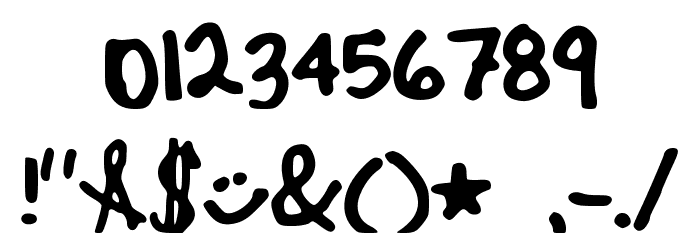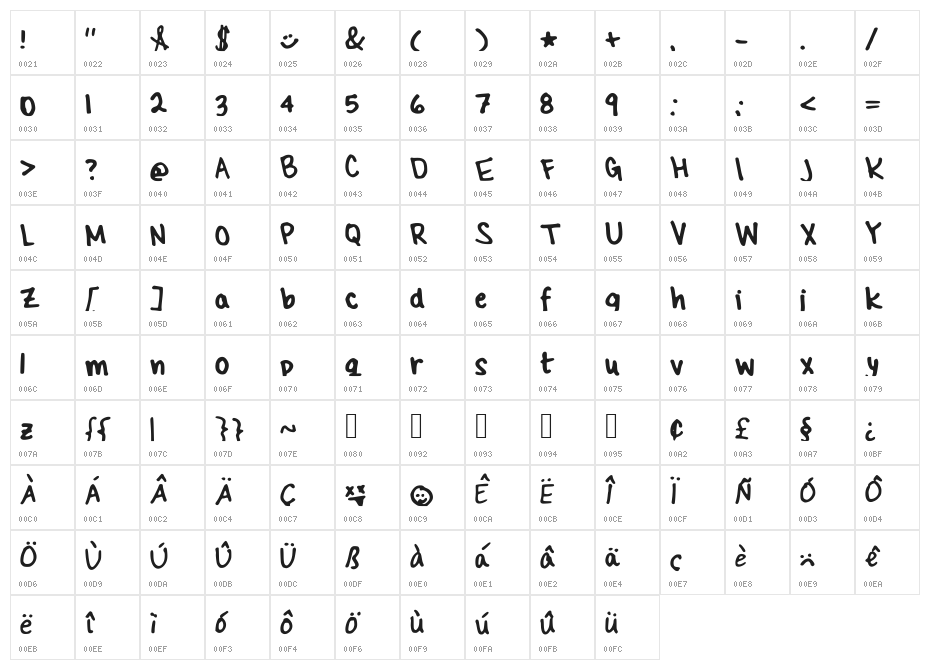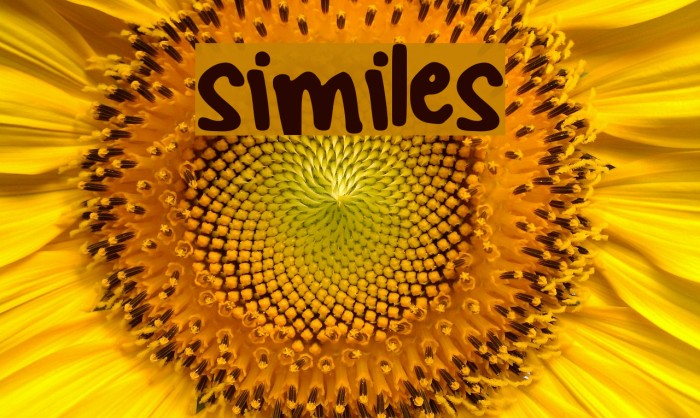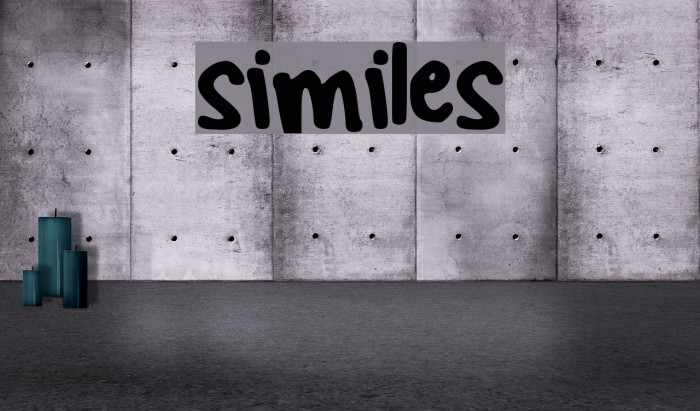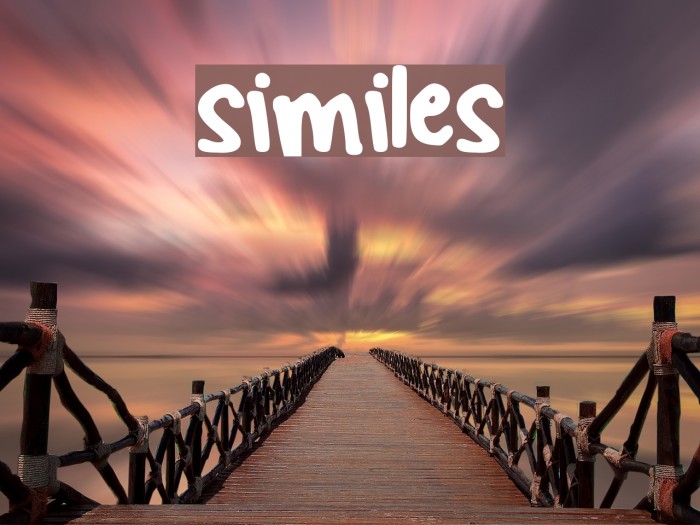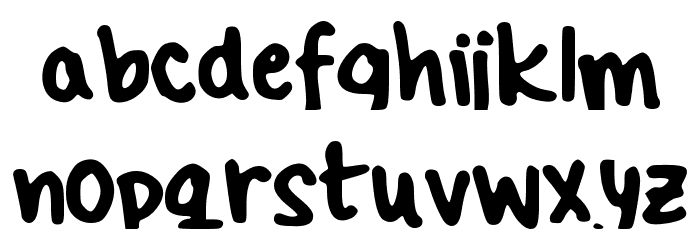
similes Font
similes Description
This playful and bold font features a handwritten style with a casual and friendly appearance. The letters are slightly irregular, giving it a whimsical and informal feel. The strokes are thick and rounded, contributing to its approachable and fun character. The font maintains a consistent weight throughout, with a medium contrast in stroke thickness. It is well-suited for projects that require a personal touch or a sense of humor, such as children's books, greeting cards, or playful branding. The spacing between characters is normal, ensuring readability while maintaining its unique style.
| Proposed Projects | Children's books, greeting cards, playful branding, informal invitations. |